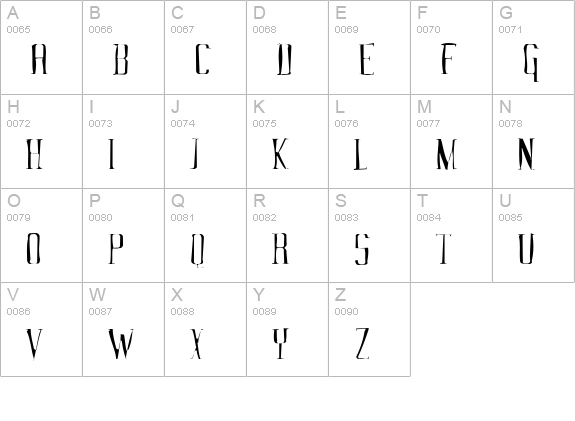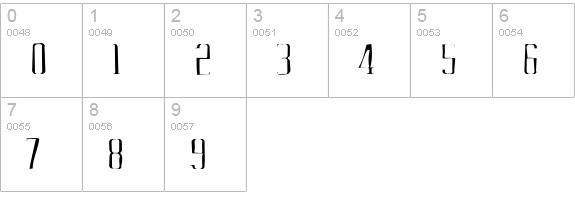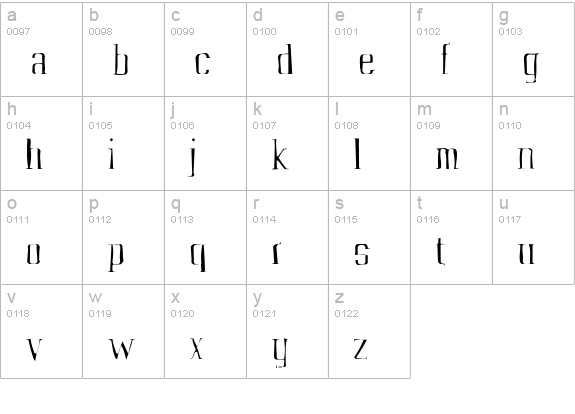
Vahika Gaunt Font Details
Vahika Gaunt font is a modern and elegant typeface that combines sleek lines with a touch of sophistication. Its tall and slender letterforms exude a sense of sophistication and style, making it perfect for luxury branding, editorial design, and more. This unique font effortlessly blends traditional elegance with a contemporary twist, making it a versatile choice for a wide range of design projects. Whether you're creating eye-catching headlines, elegant invitations, or stylish packaging, Vahika Gaunt font is sure to make a statement. Best of all, Vahika Gaunt font is available for free download at FontsMarket.com. This means you can easily add this stunning typeface to your design arsenal without breaking the bank. Don't miss out on the opportunity to elevate your designs with the timeless charm of Vahika Gaunt font.